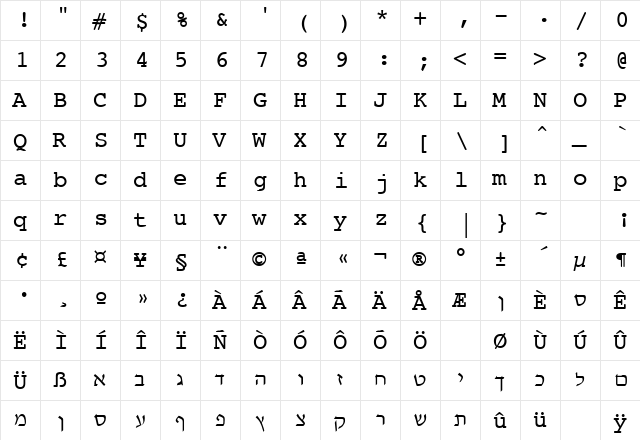
Ariela Plain Font Preview
Ariela Plain
Ariela Plain Font Details
Design Context for Ariela Typeface
Ariela offers clean, dependable letterforms without strong stylistic allegiance, making it a practical choice for designers who need flexibility.
Pro Tip: Use Ariela in both headline and body roles to test its range before committing to a single application.